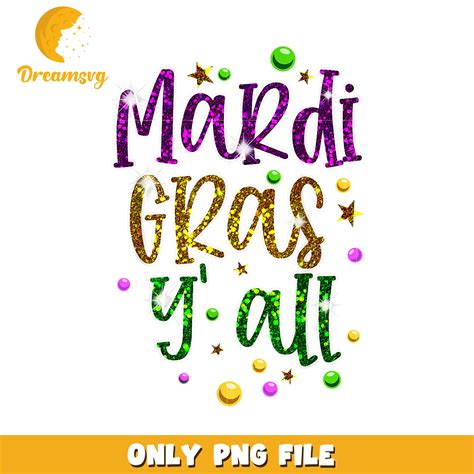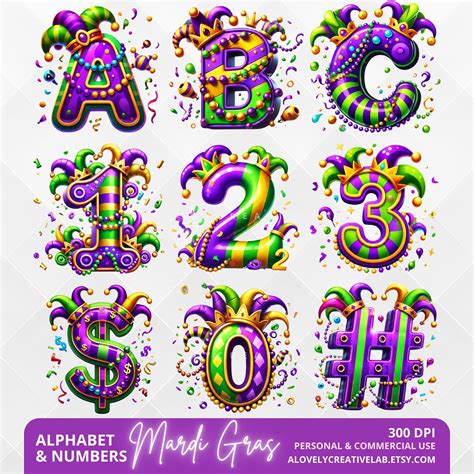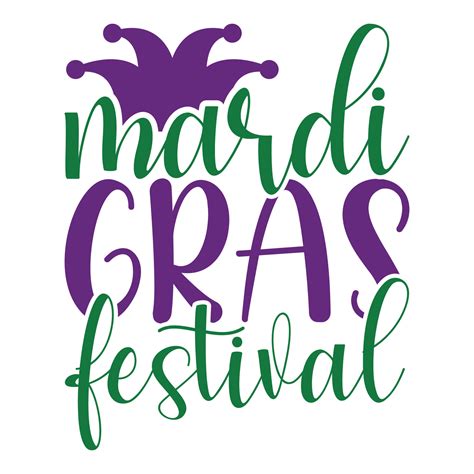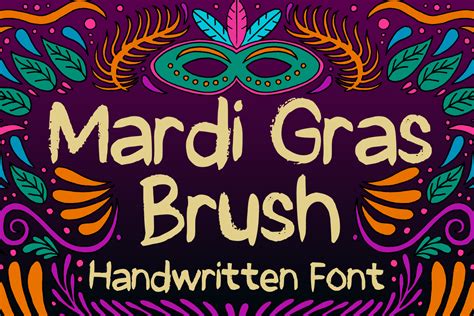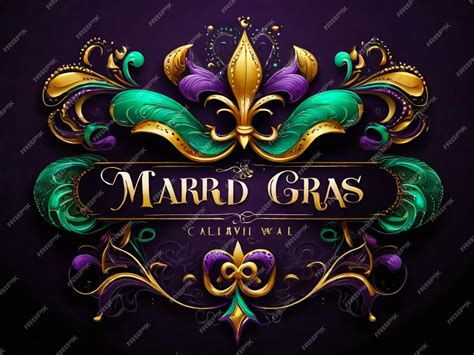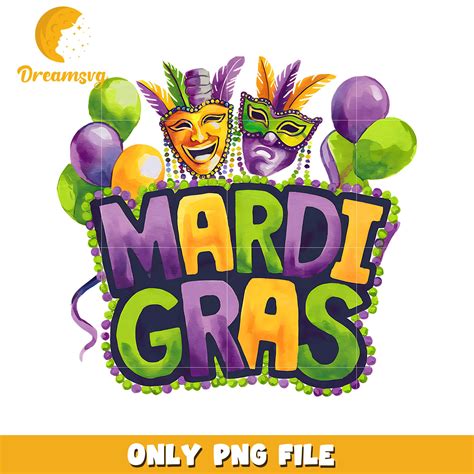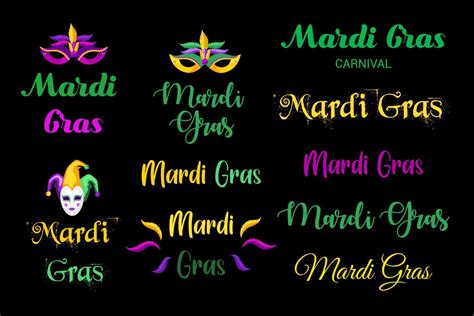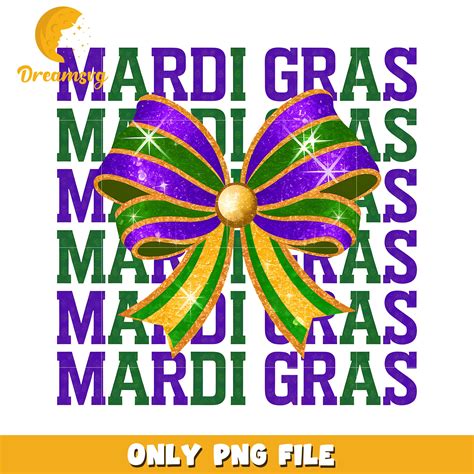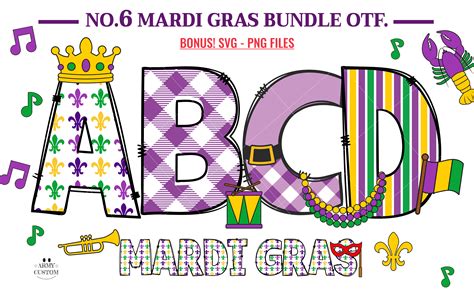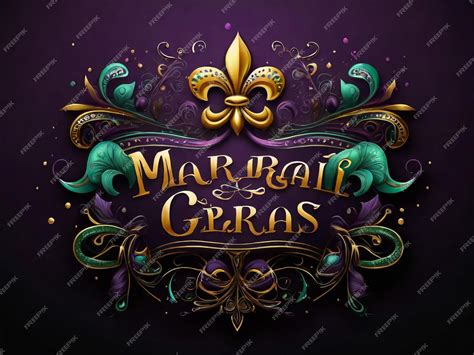
Mardi Gras is a vibrant and colorful celebration that brings people together to enjoy parades, music, and delicious food. One of the most iconic elements of Mardi Gras is its distinctive typography, often referred to as the Mardi Gras Font. This font captures the festive spirit of the event, with its bold, playful, and often ornate designs. Whether you're planning a Mardi Gras-themed party, designing invitations, or creating promotional materials, choosing the right Mardi Gras Font can set the perfect tone for your event.
Understanding the Mardi Gras Font
The Mardi Gras Font is more than just a typeface; it's a visual representation of the festive atmosphere that defines this celebration. The font often features:
- Bold and vibrant colors
- Playful and whimsical designs
- Ornate and decorative elements
- A sense of joy and celebration
These characteristics make the Mardi Gras Font ideal for a variety of applications, from event invitations to promotional materials. The font's ability to convey a sense of fun and excitement makes it a popular choice for designers looking to capture the essence of Mardi Gras.
Choosing the Right Mardi Gras Font
When selecting a Mardi Gras Font, it's important to consider the overall theme and mood of your event. Here are some tips to help you choose the perfect font:
- Consider the Event's Theme: If your event has a specific theme, such as a New Orleans-style celebration or a more traditional Mardi Gras party, choose a font that complements that theme.
- Think About Readability: While decorative fonts can add a festive touch, make sure they are still easy to read. Avoid fonts that are too ornate or complex, as they can be difficult to decipher.
- Match the Color Scheme: Choose a font that complements your event's color scheme. Bright, vibrant colors are often associated with Mardi Gras, so consider fonts that feature these hues.
- Test Different Fonts: Experiment with different Mardi Gras Fonts to see which one best captures the spirit of your event. You can use online tools to preview how the font will look in your design.
Popular Mardi Gras Fonts
There are numerous Mardi Gras Fonts available, each with its unique style and characteristics. Here are some popular options to consider:
| Font Name | Description | Best For |
| Jester | A playful and whimsical font with a hand-drawn feel, perfect for adding a touch of fun to your designs. | Invitations, party decorations |
| Carnival | A bold and vibrant font with ornate details, ideal for capturing the festive spirit of Mardi Gras. | Posters, banners |
| Mardi Gras | A classic Mardi Gras Font with a traditional feel, featuring bold letters and decorative elements. | Event signage, promotional materials |
| New Orleans | A font inspired by the city's rich history and culture, with a vintage and elegant design. | Invitations, menus |
| Festive | A lively and energetic font with a modern twist, perfect for adding a contemporary touch to your designs. | Social media graphics, digital invitations |
Each of these fonts offers a unique take on the Mardi Gras theme, allowing you to choose the one that best fits your event's style and atmosphere.
Designing with Mardi Gras Fonts
Once you've chosen the perfect Mardi Gras Font, it's time to start designing. Here are some tips to help you create stunning designs that capture the spirit of Mardi Gras:
- Use Color Wisely: Mardi Gras is known for its vibrant colors, so don't be afraid to use a bold color palette. Consider using shades of purple, green, and gold, which are traditional Mardi Gras colors.
- Incorporate Festive Elements: Add decorative elements like beads, masks, and feathers to your designs to enhance the Mardi Gras theme. These elements can be integrated into the font itself or used as background graphics.
- Keep It Simple: While it's tempting to go overboard with decorative elements, remember that simplicity is key. Choose a few key elements and use them consistently throughout your design.
- Test Different Combinations: Experiment with different font sizes, colors, and styles to see what works best. You can use online design tools to preview your designs and make adjustments as needed.
By following these tips, you can create designs that are both visually appealing and true to the spirit of Mardi Gras.
💡 Note: When designing with Mardi Gras Fonts, always ensure that the font is legible, especially if it will be used for important information such as event details or instructions.
Creating Invitations with Mardi Gras Fonts
Invitations are often the first impression guests have of your event, so it's important to make them stand out. Using a Mardi Gras Font can help set the tone for your celebration and get guests excited about the upcoming festivities. Here are some steps to create eye-catching invitations:
- Choose a Festive Font: Select a Mardi Gras Font that captures the spirit of your event. Consider fonts like Jester, Carnival, or Mardi Gras for a playful and vibrant look.